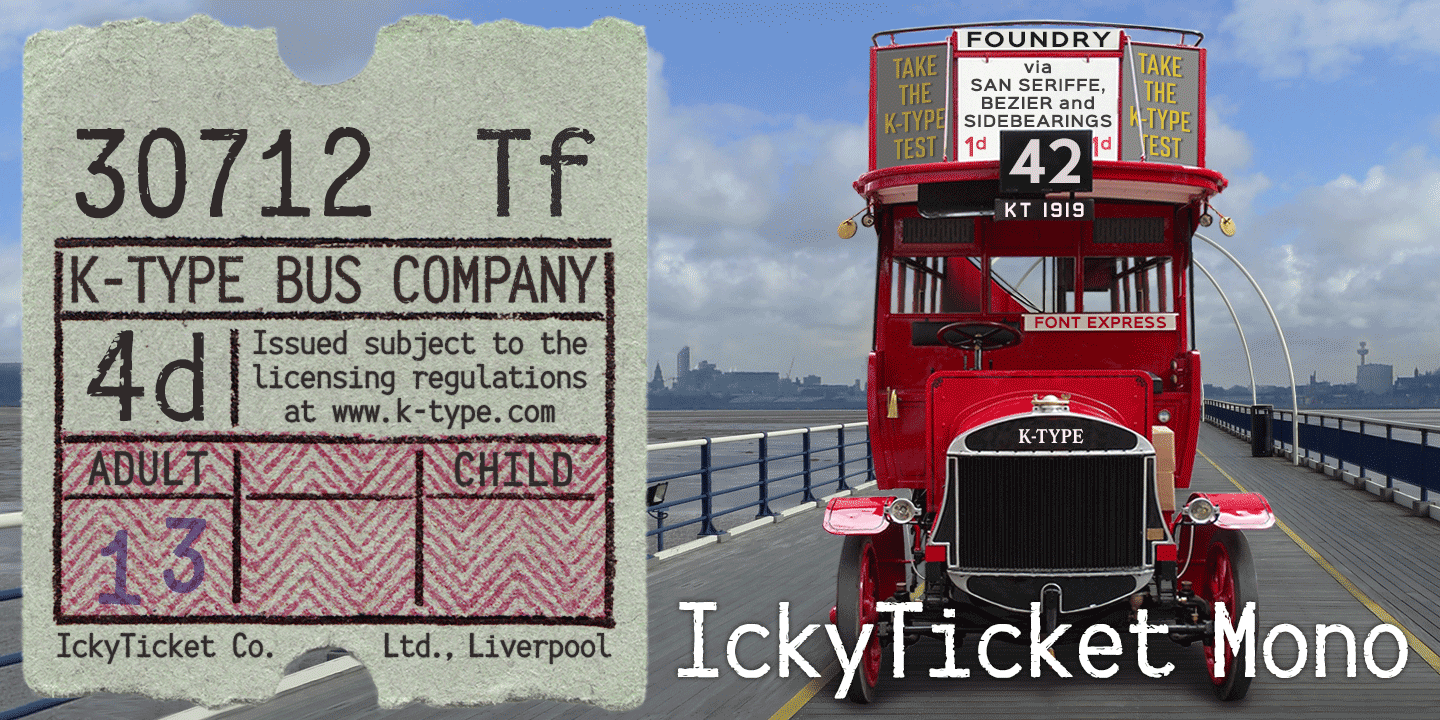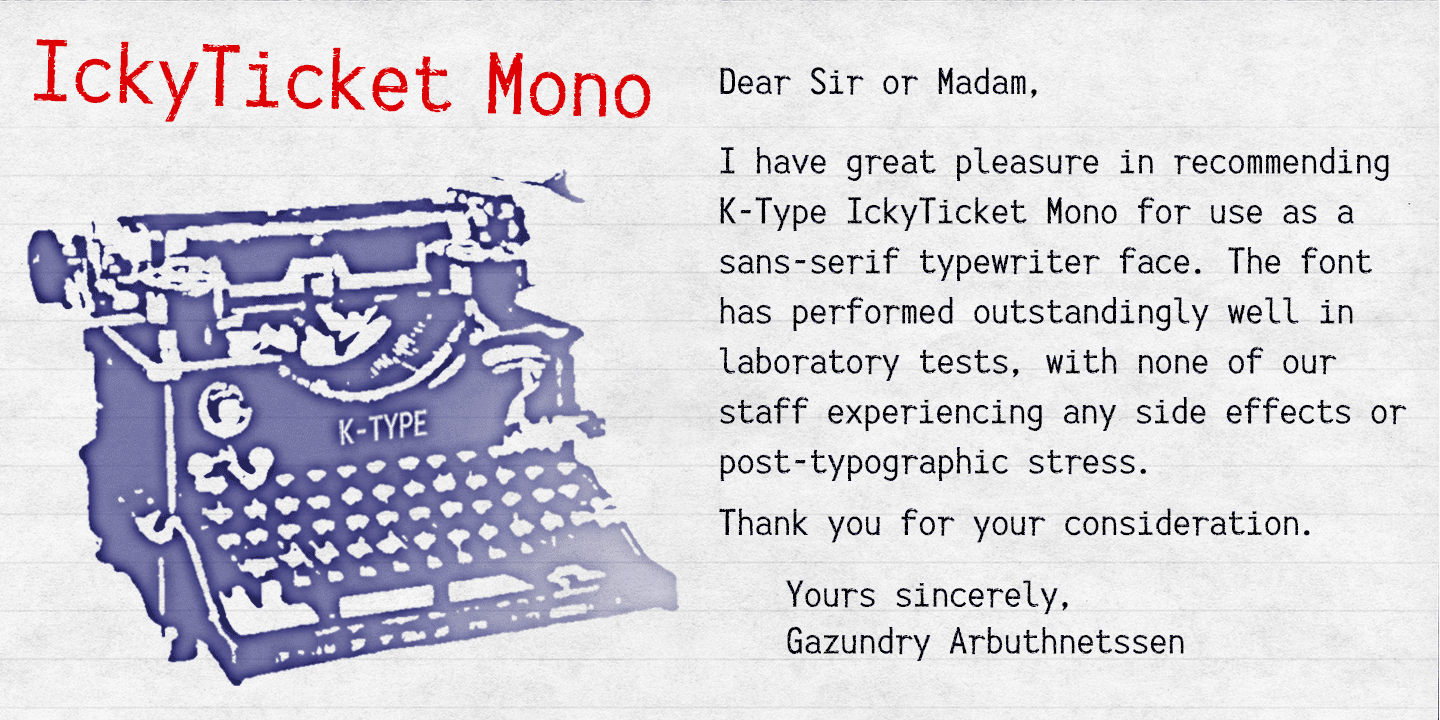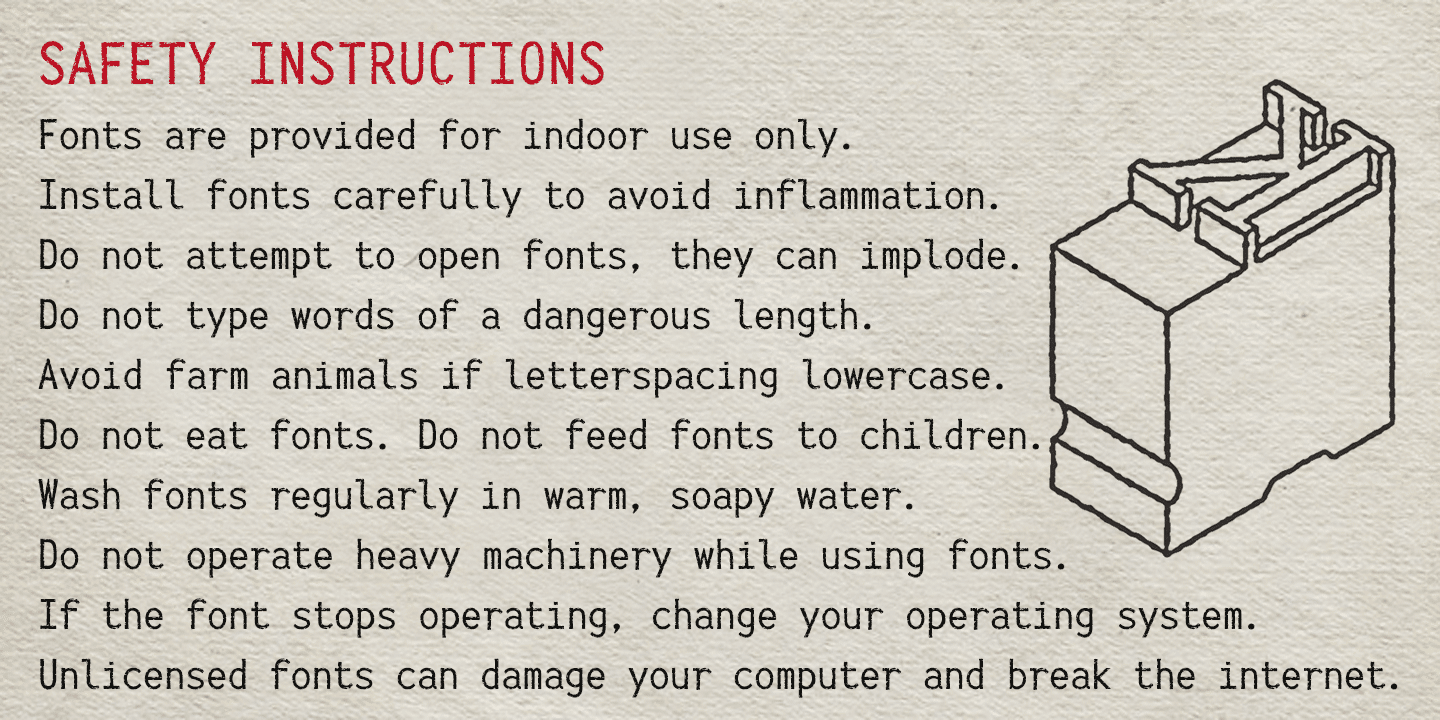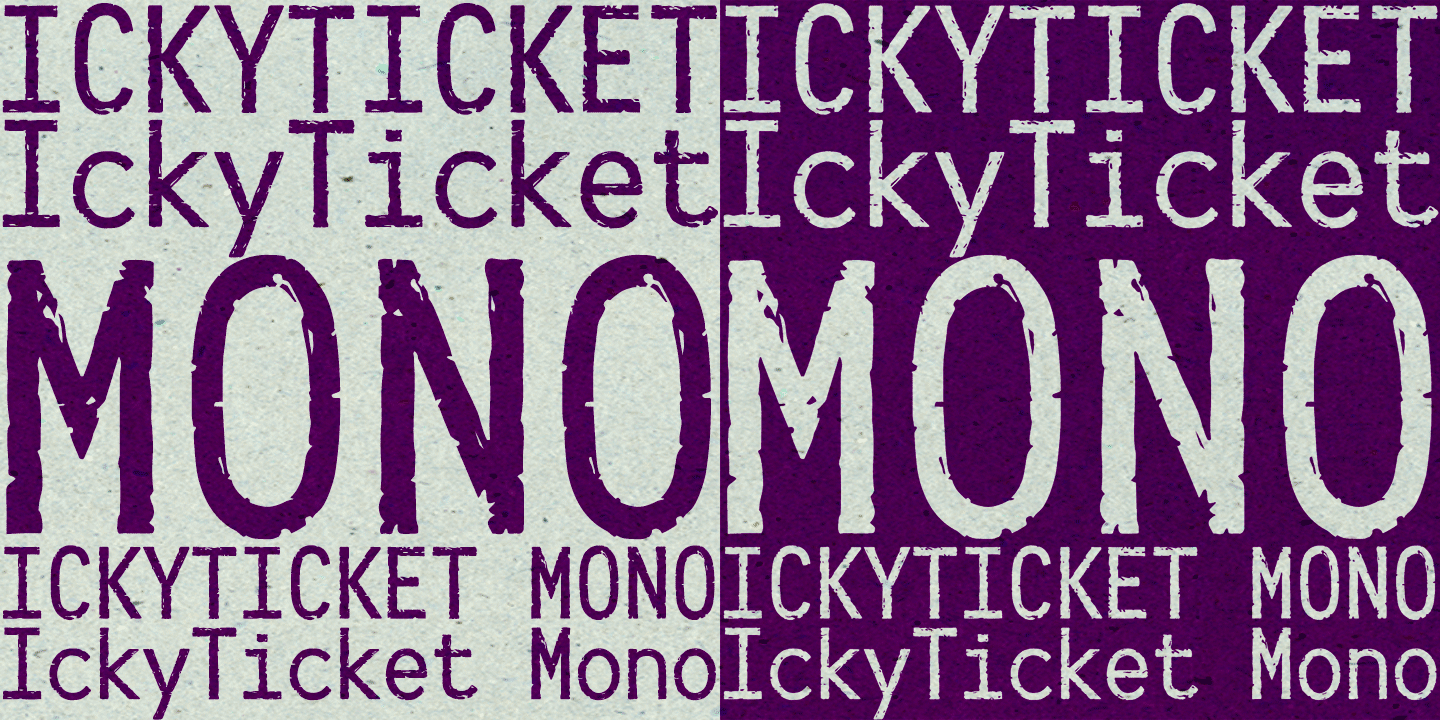
IckyTicket Mono is a monospaced font based on the coarsely printed numbering from 1960s bus tickets, and designed to simulate rough texture at smaller type sizes. The font contains a full complement of Latin Extended-A characters.